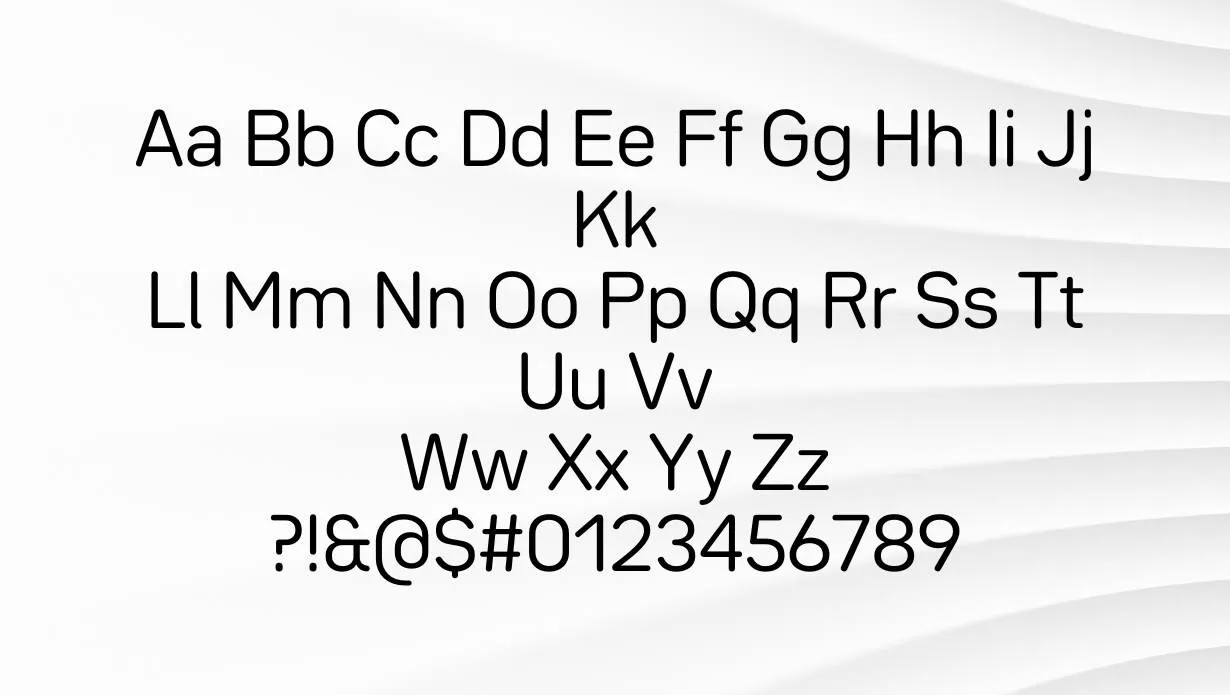
The Seido Round Font Family is characterized by its friendly, rounded appearance, making it a perfect fit for casual and approachable designs in Adobe CSS. It’s often used in creating materials for children, playful websites, or informal branding.
This font family offers a range of options within its design, from light to bold versions. In Adobe CSS, it’s used for headings, banners, and logos, infusing a playful and youthful vibe into designs.
In Microsoft Word, it imparts a fun and approachable look to titles and headings, especially for children’s content or informal settings. Supported file formats for this font family include TTF, OTF, and WOFF.